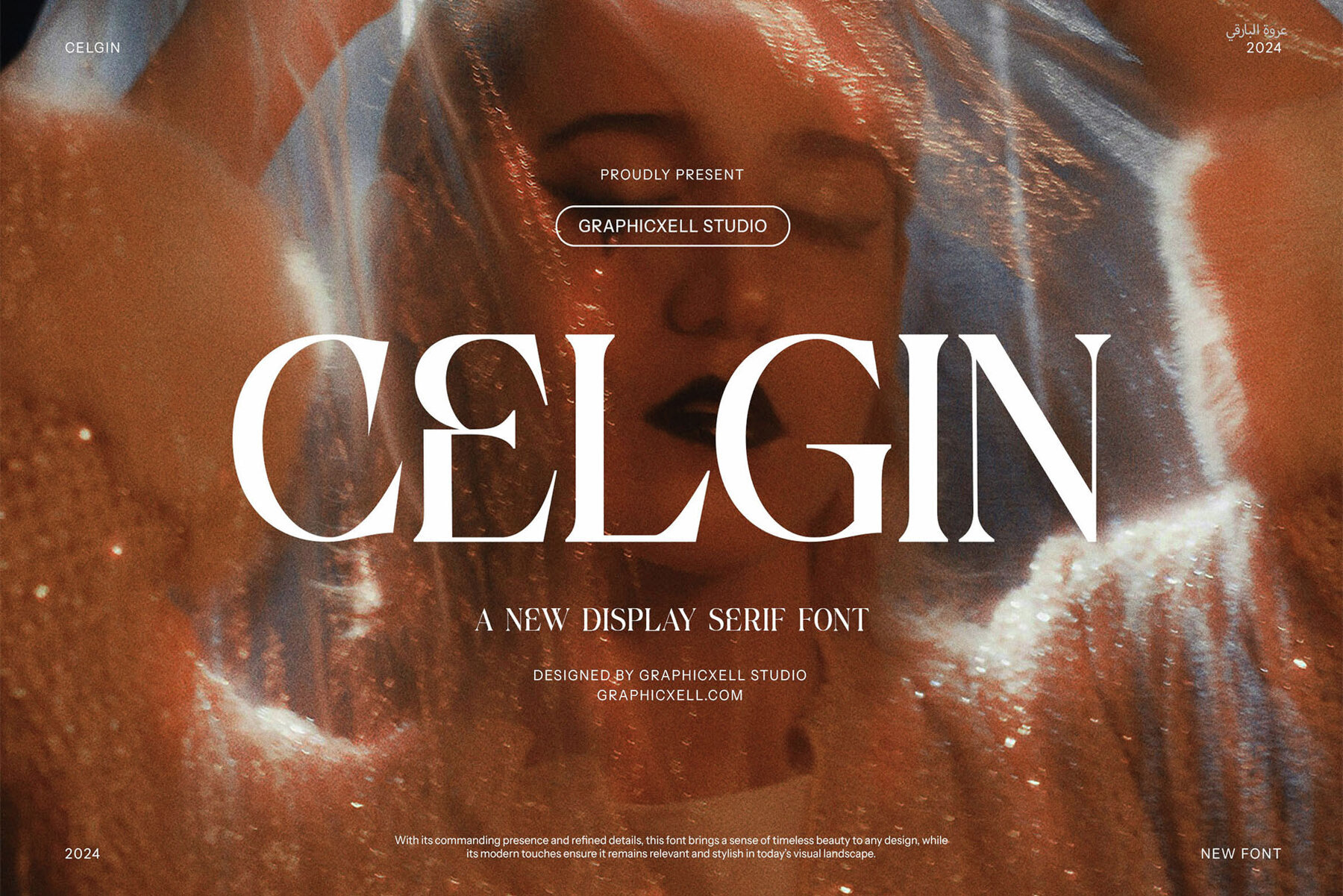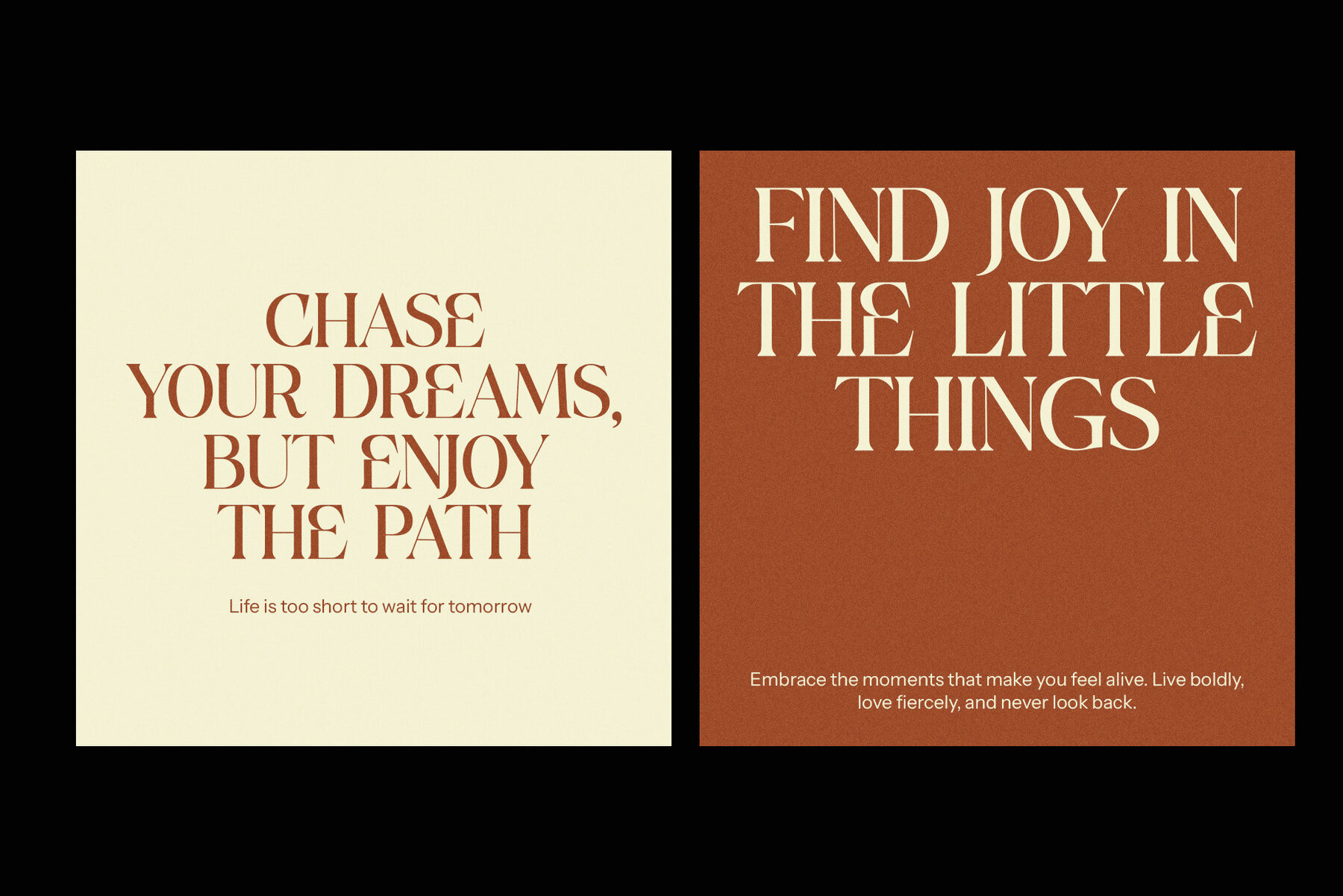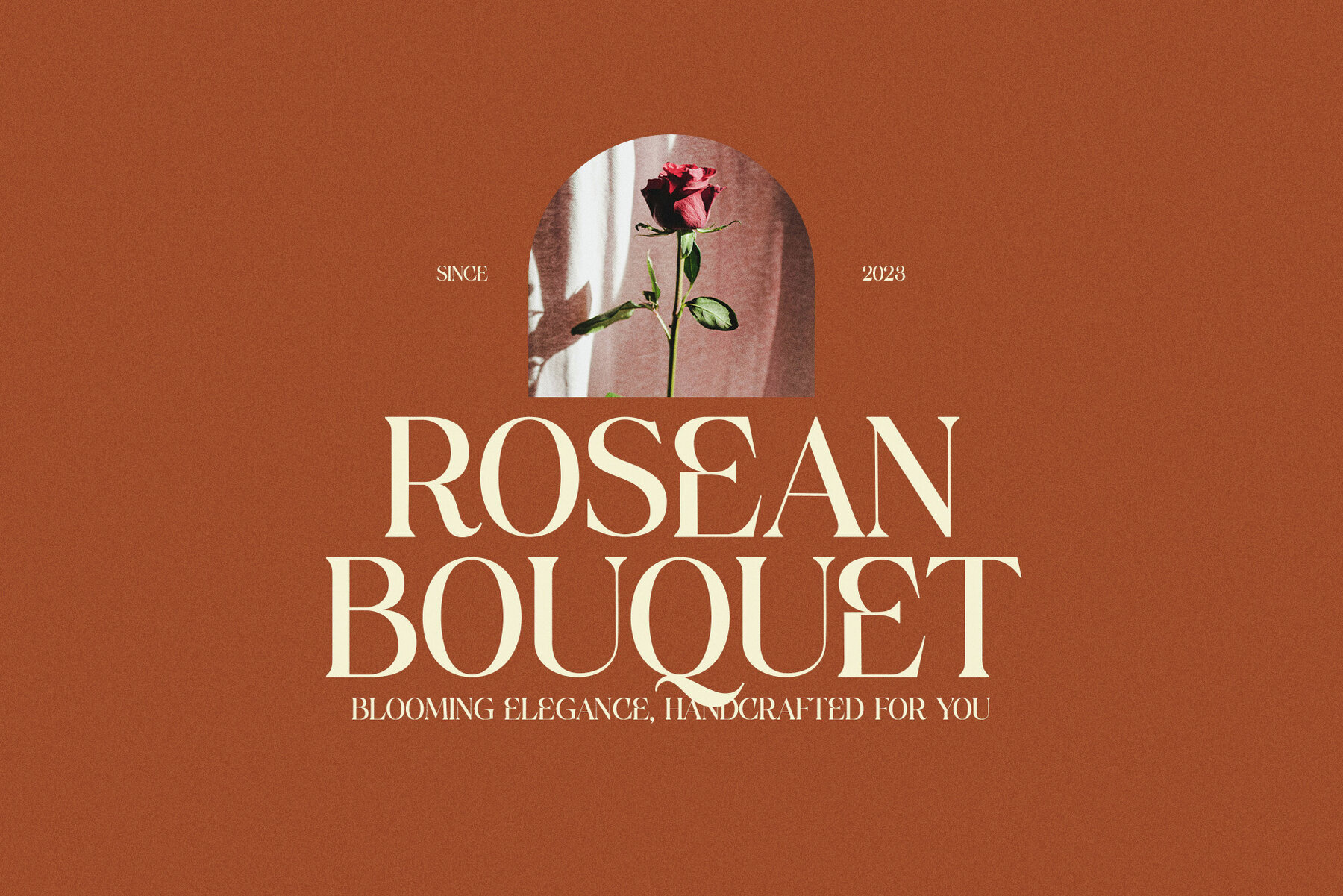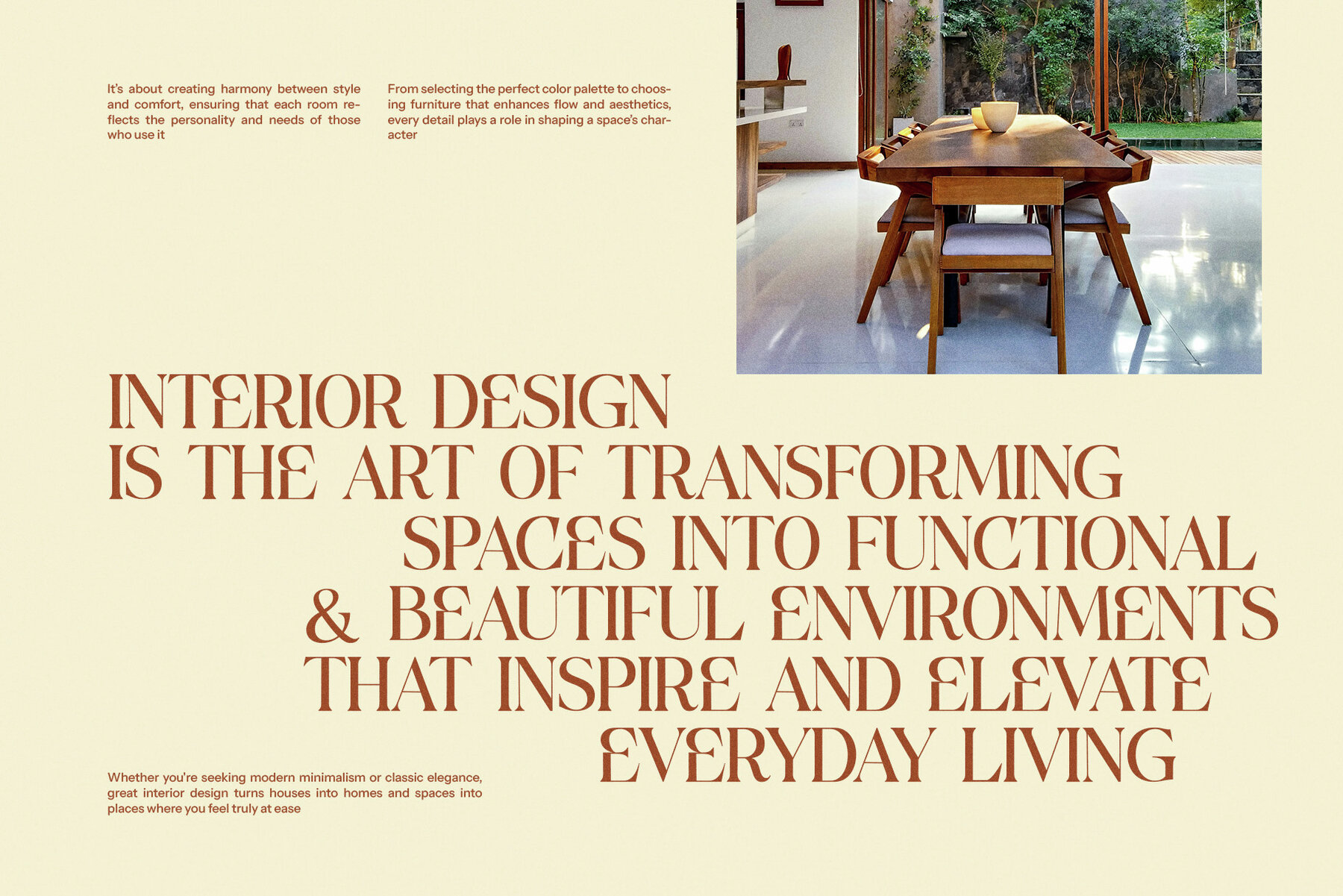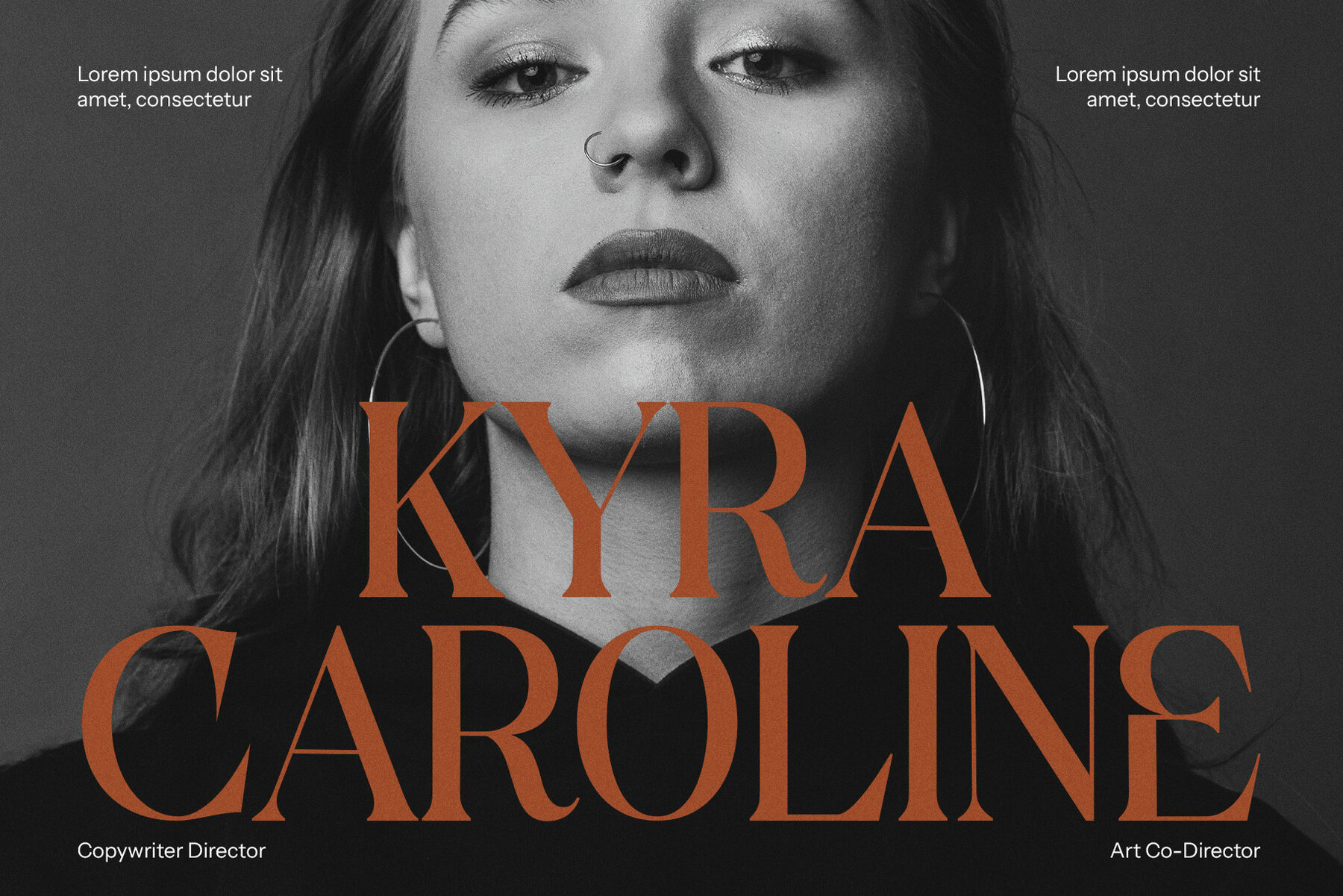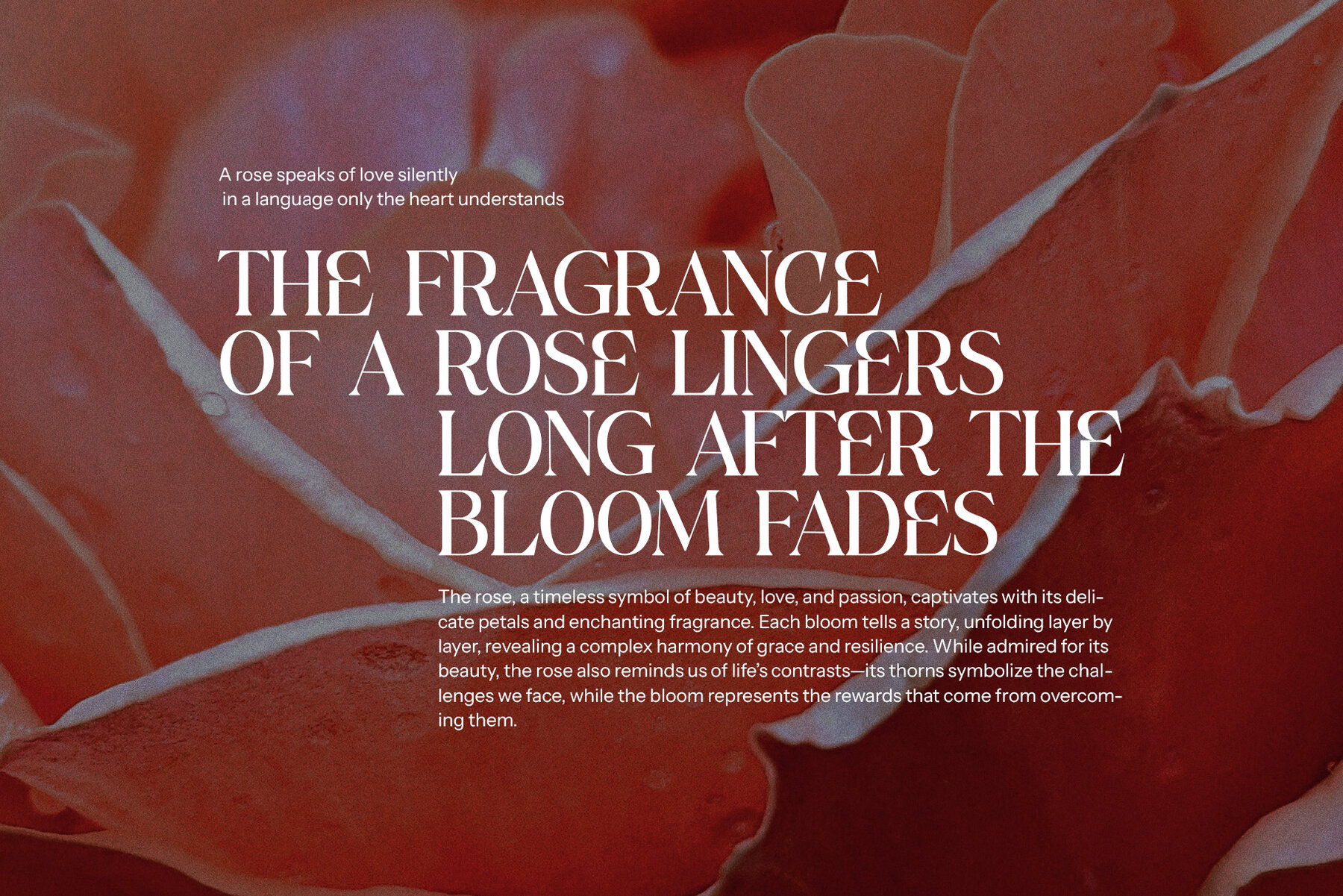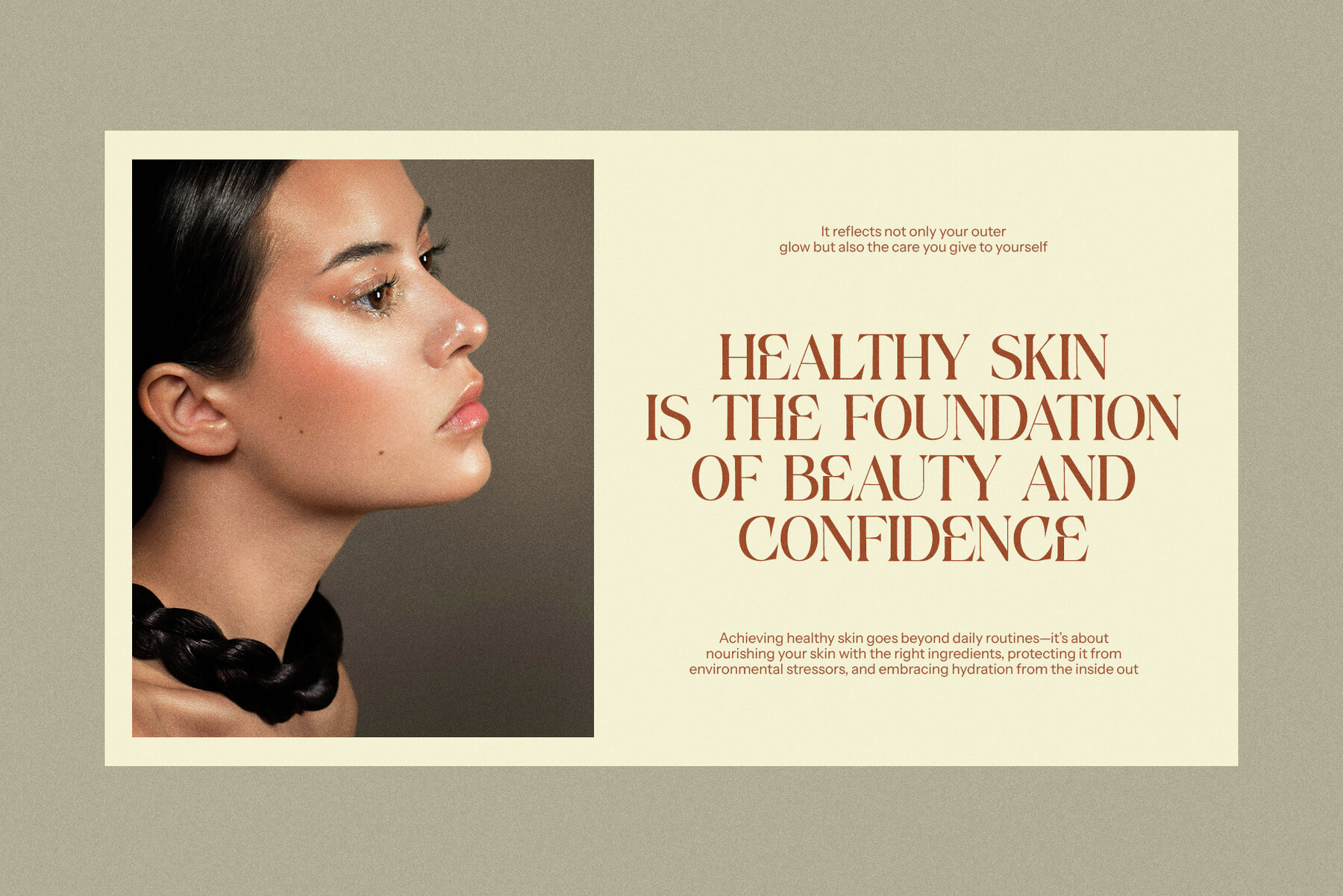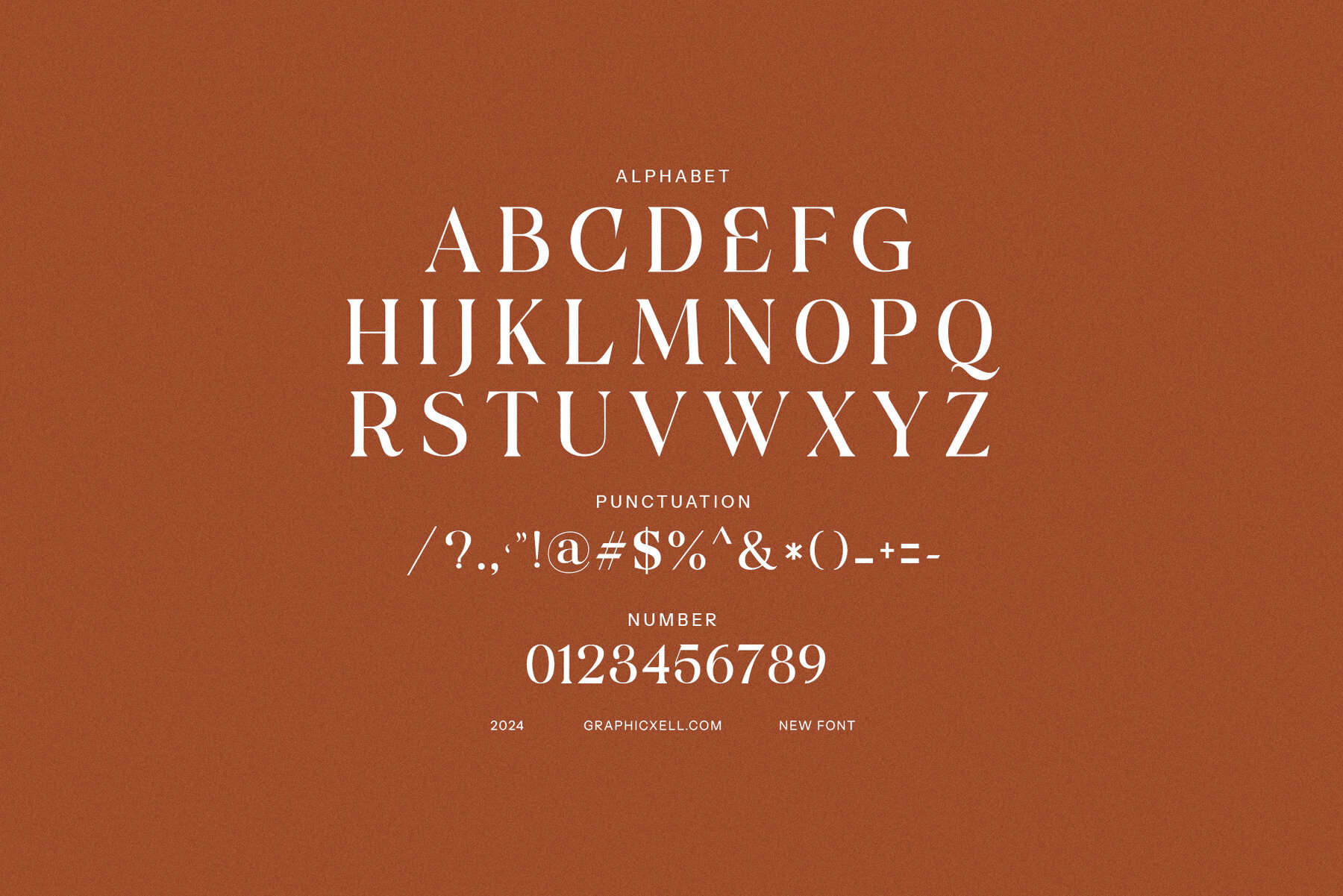
Celgin Font
Celgin
Celgin Vintage Serif Font captures the essence of timeless elegance and vintage sophistication through its distinctively sculpted serifs. The graceful design pays homage to classic typography, seamlessly blending with a modern touch that infuses contemporary style into traditional elements. This harmonious balance makes it an ideal choice for designers looking for originality and elegance in their projects. Celgin's remarkable charm lies in its letterforms, where bold, angular serifs are complemented by smooth curves and fluid lines, ensuring both legibility and strength across varying sizes.
Whether applied to sophisticated logos, elegant invitations, or polished magazine spreads, Celgin offers versatility suited for high-end branding, product packaging, advertising, and editorial layouts. It seamlessly transitions between print and digital platforms, imparting a timeless quality to any creative endeavor. The unique blend of vintage allure and modern sensibility allows Celgin to make a statement, offering designers a distinctive and classic touch coupled with a contemporary appeal.